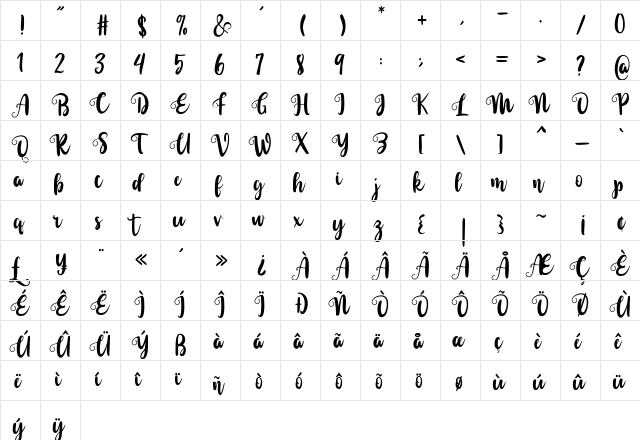
Sarllina Regular
| Foundry | Aqeela Studio |
| Designer | Aqeela Studio |
Design Context for Sarllina Typeface
Sarllina is a composed and adaptable typeface that performs quietly and consistently across a wide range of design contexts.